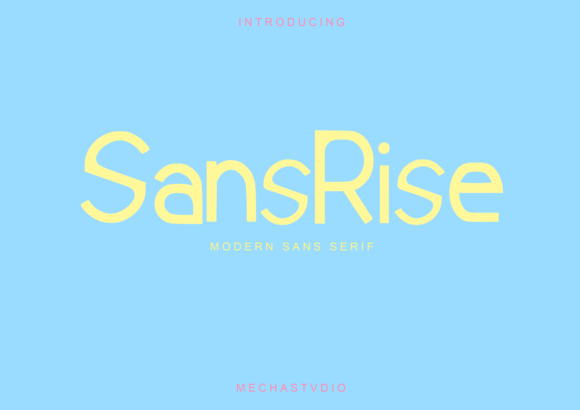
Welcome to the world of Sansrise Font, a creation of MechaStudio, where elegance meets simplicity, and uniqueness knows no bounds. This sans serif font is no ordinary typeface; it's a gateway to transform your creative projects into masterpieces. With its sleek and modern lines, Sansrise Font adds a touch of sophistication and charm to your designs.
Immerse yourself in the beauty of Sansrise Font's distinct style. Each letterform is meticulously crafted to deliver a harmonious balance of readability and visual appeal. The clean lines and open counters make Sansrise Font perfect for a wide range of applications, from logos and branding to website designs and social media graphics.
Unleash your creativity and let the Sansrise Font take your projects to new heights. Its versatility transcends genres and styles, making it an indispensable tool for designers seeking to make a lasting impression. Whether you're working on a minimalist design or a bold and vibrant composition, Sansrise Font seamlessly adapts to your vision.
But what truly sets Sansrise Font apart is its ability to evoke emotions and create connections. The font's friendly and inviting nature draws readers in and invites them to engage with your content. It's a font that speaks volumes, expressing messages of warmth, approachability, and professionalism.
Step into a world where your creative ideas come to life with Sansrise Font. It's the perfect font for entrepreneurs, bloggers, marketers, and designers seeking to make a statement and leave a lasting impact.
Sansrise Font isn't just a font; it's an experience. It's a fusion of art and technology, designed to empower your creativity and help you achieve your design goals. Its versatility, style, and emotional appeal make it the perfect choice for those who demand excellence in their creative endeavors.